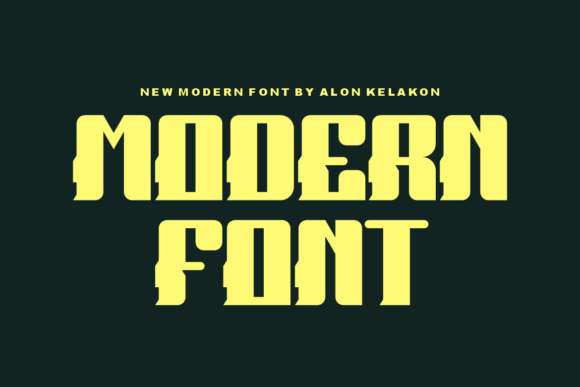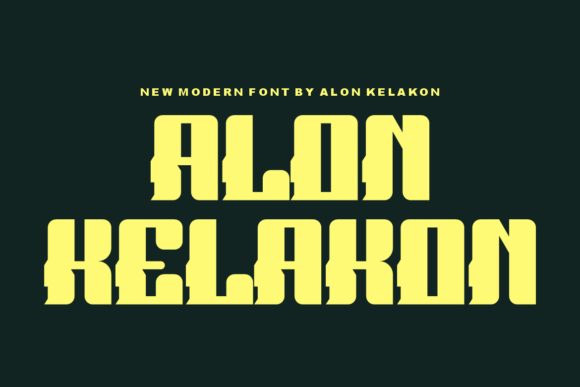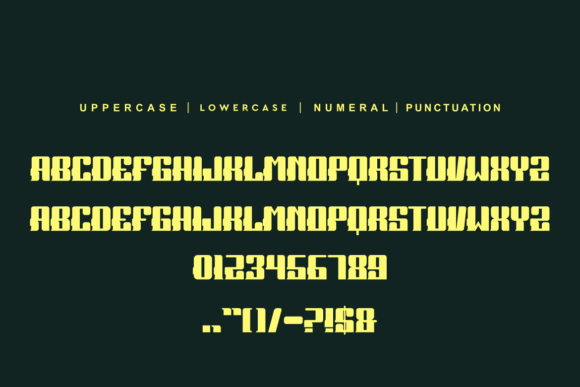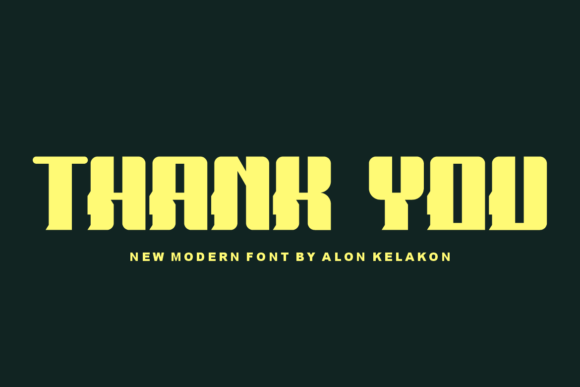
Regyman Font
Regyman: A Unique Slab Serif Font
Regyman is a unique slab serif font that’s ready to use for many different design projects. From labeling and clothing to movie scenes, posters, titles, gigs, album covers, logos, and much more, this versatile typeface fits many creative needs.
Key Features of Regyman
• Unique Design: Offers a distinctive look that stands out.
• Versatile Style: Works well across many different uses.
• Ready to Use: Perfect for immediate application in projects.
• Distinctive Character: Brings personality to designs.
Best Uses for Regyman
Thanks to its unique characteristics, Regyman works especially well for:
When using Regyman in your designs, keep these tips in mind:
• Try it for headlines or short text to show off its unique style.
• Test different sizes to find the perfect fit for your project.
• Mix with simpler fonts for body text to create contrast.
• Let its versatility inspire new creative ideas.
To sum up, Regyman is an excellent choice for designers seeking a unique slab serif font that can work across many different projects. Its versatile nature makes it perfect for various creative needs. Whether you’re designing clothing, creating movie titles, or crafting logos, Regyman offers the perfect mix of uniqueness and flexibility.
Furthermore, Regyman’s distinctive design allows it to shine in many different settings. For instance, from product labels to gig posters, this font can lift your projects with its special style. Also, its unique yet readable look works well in designs that aim to grab attention while staying clear and legible.
In conclusion, Regyman truly stands out in the world of slab serif typography. Its ability to work well across so many different uses shows how flexible it can be. Therefore, for those wanting to add a unique touch to their work, Regyman can enhance any design with its distinctive style. Ultimately, it’s perfect for designers aiming to make a strong, memorable impact across many different kinds of creative projects.